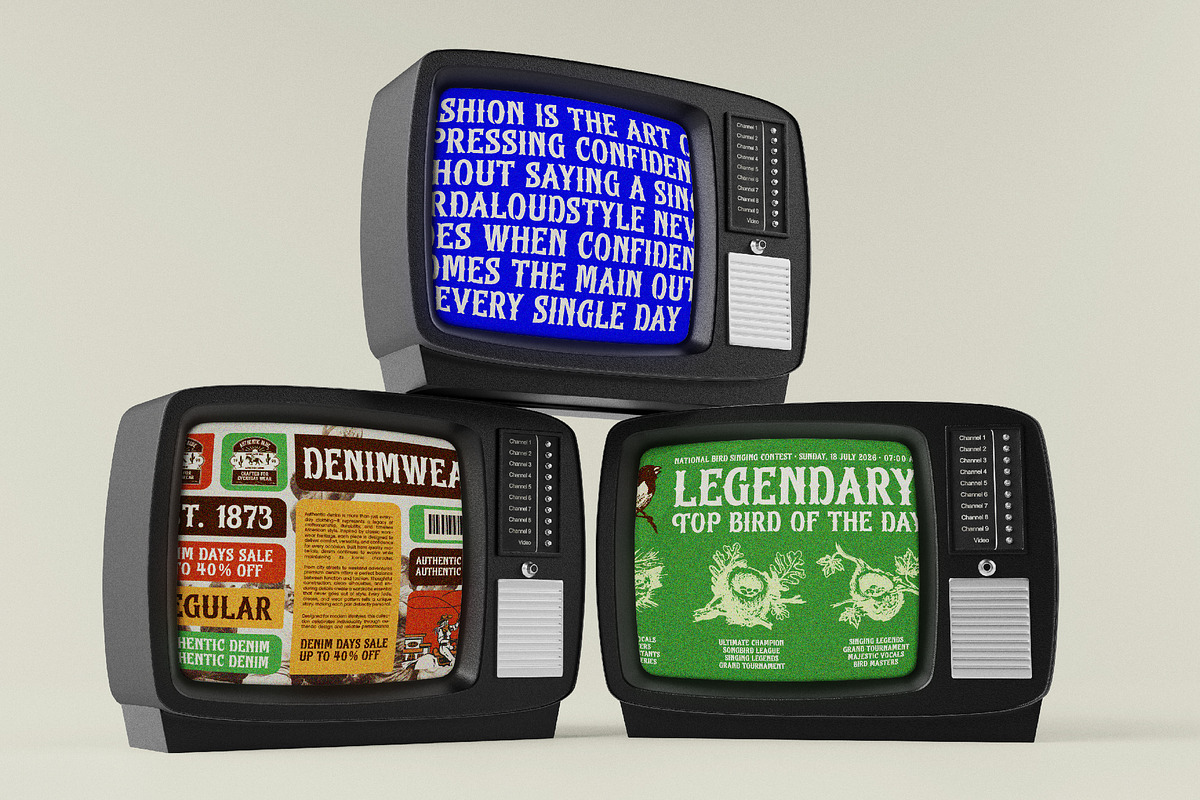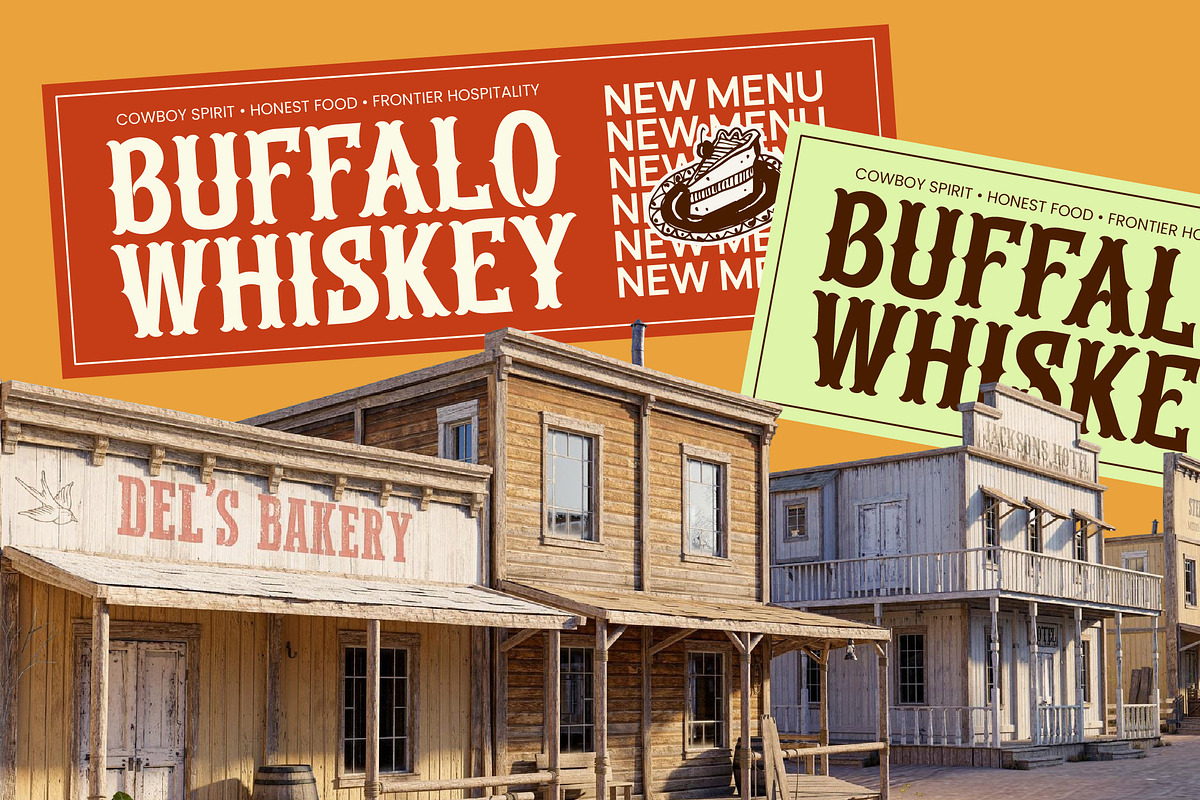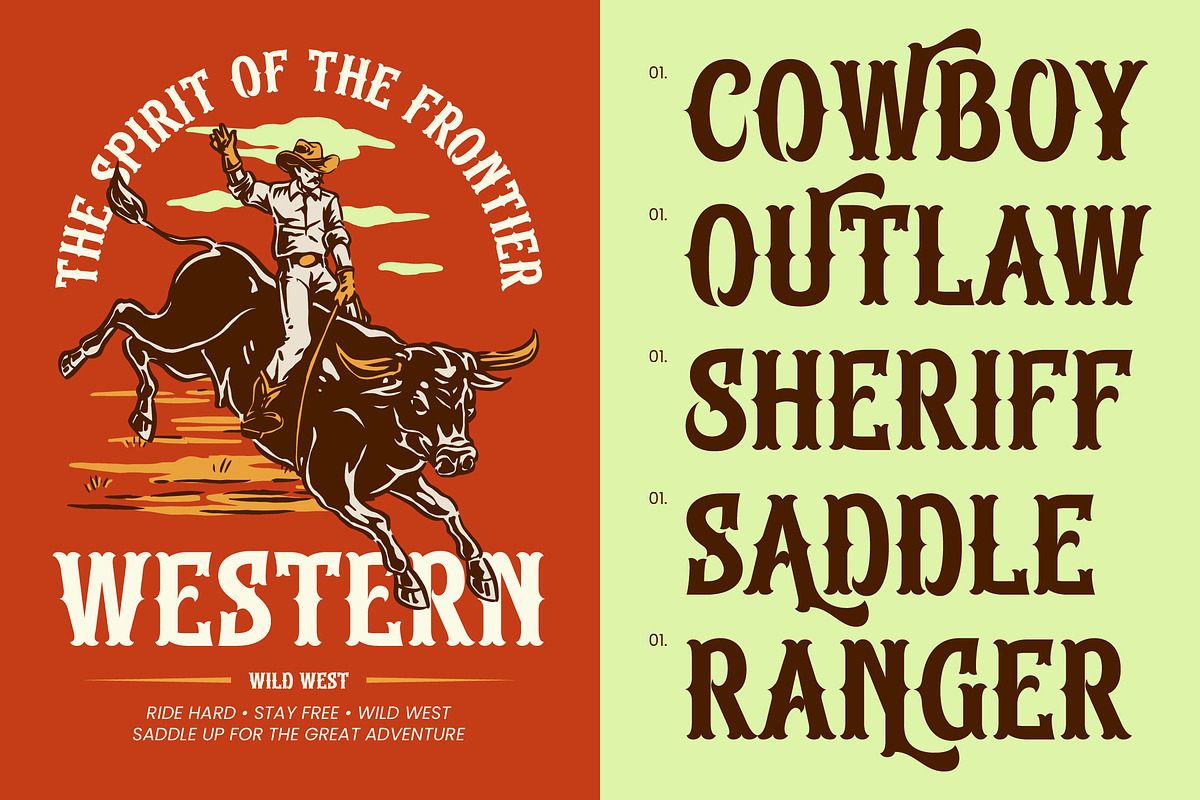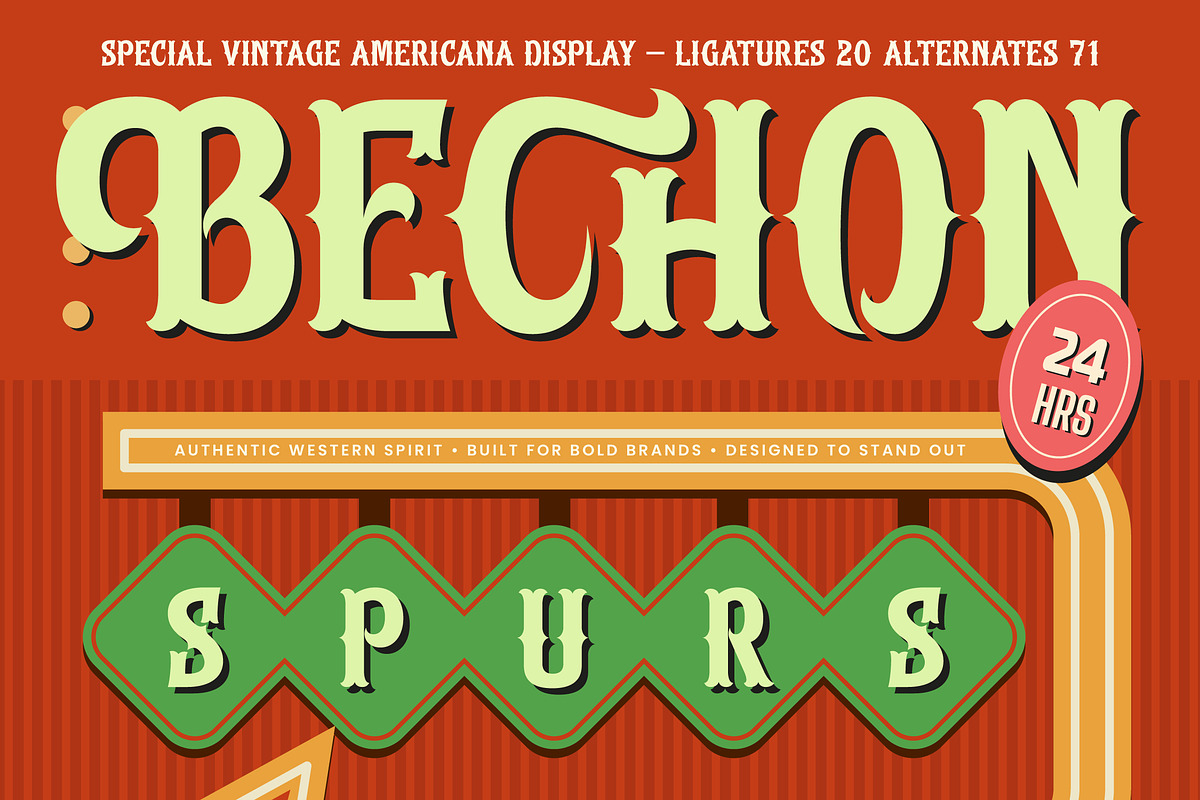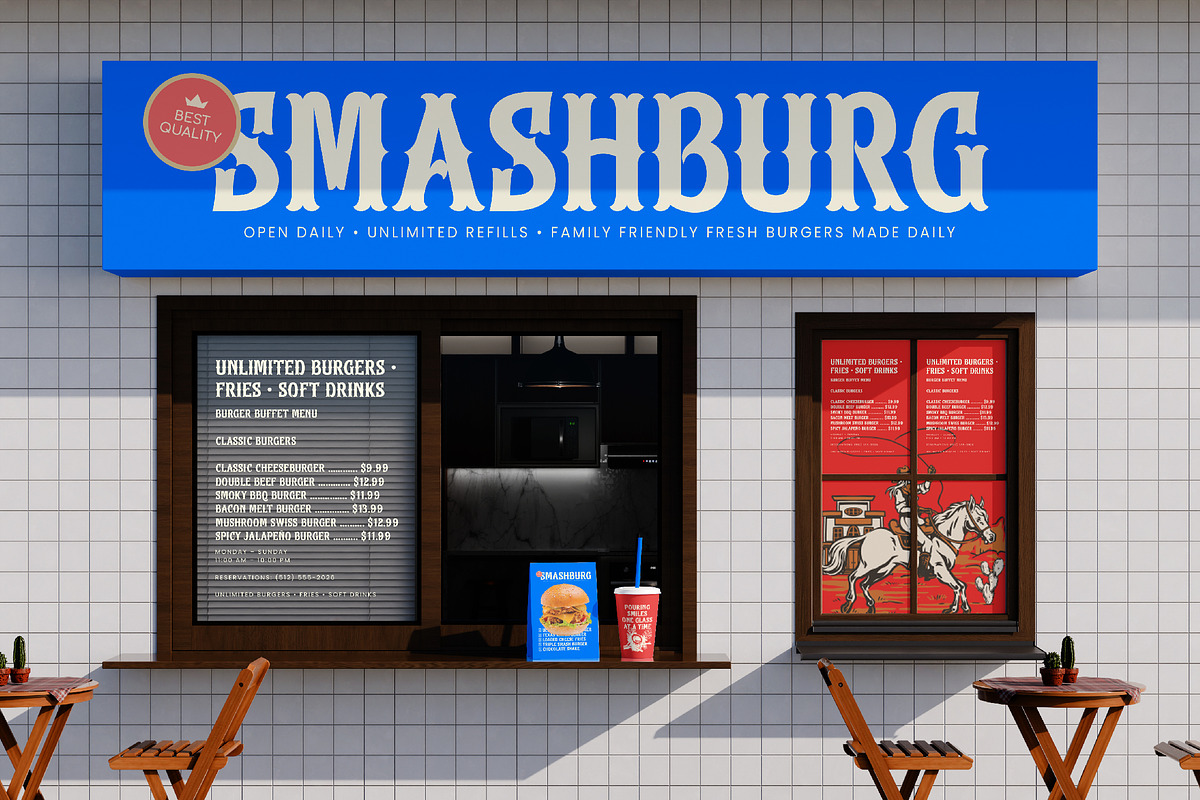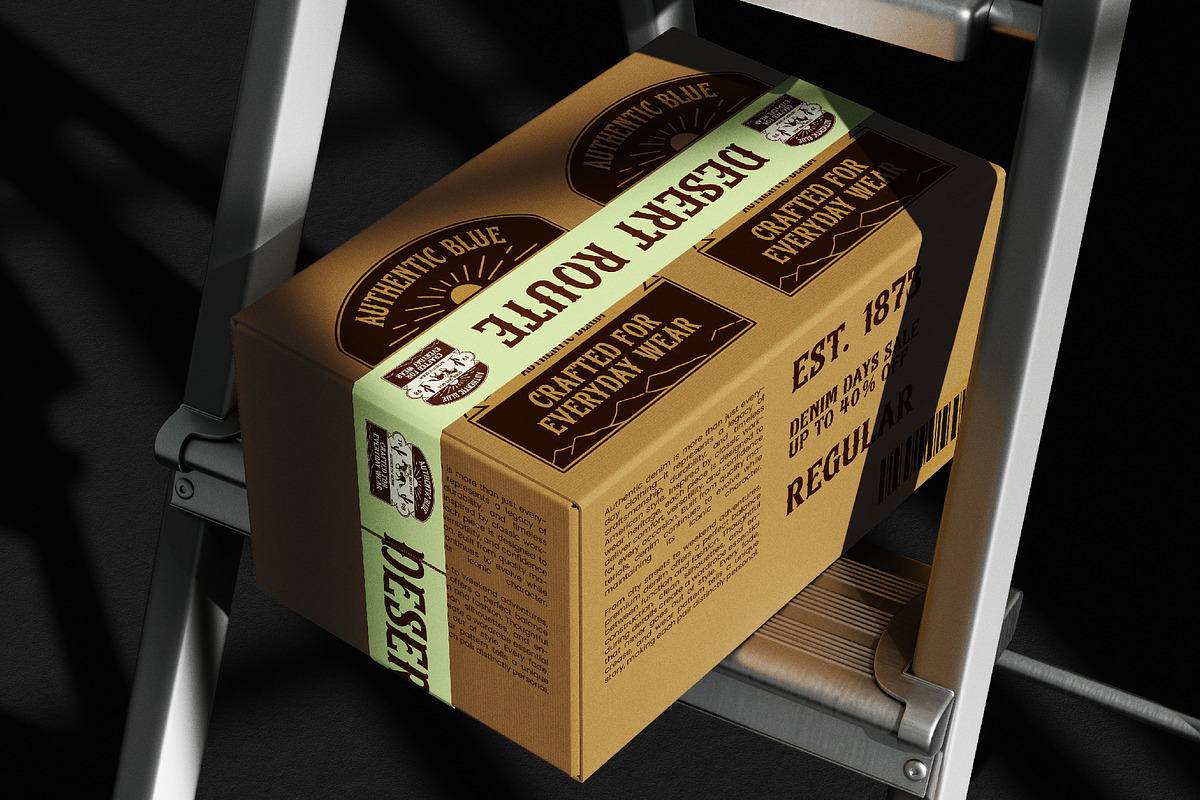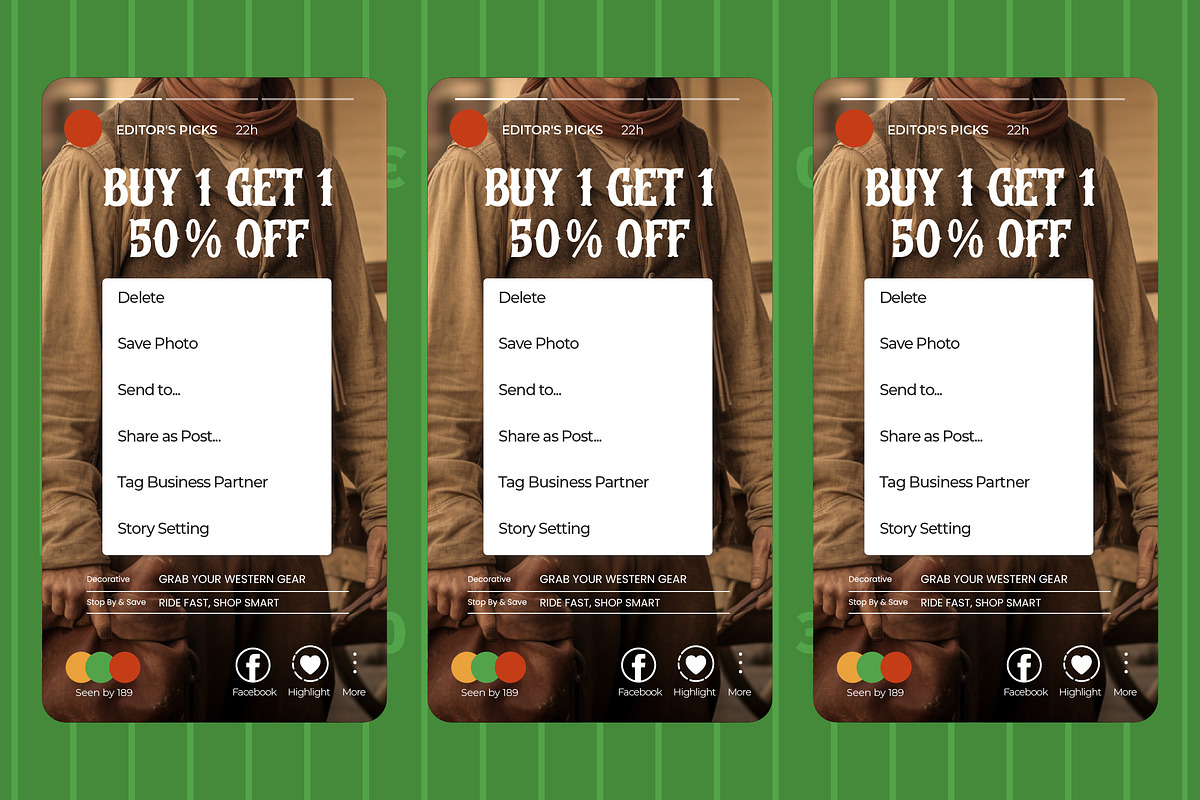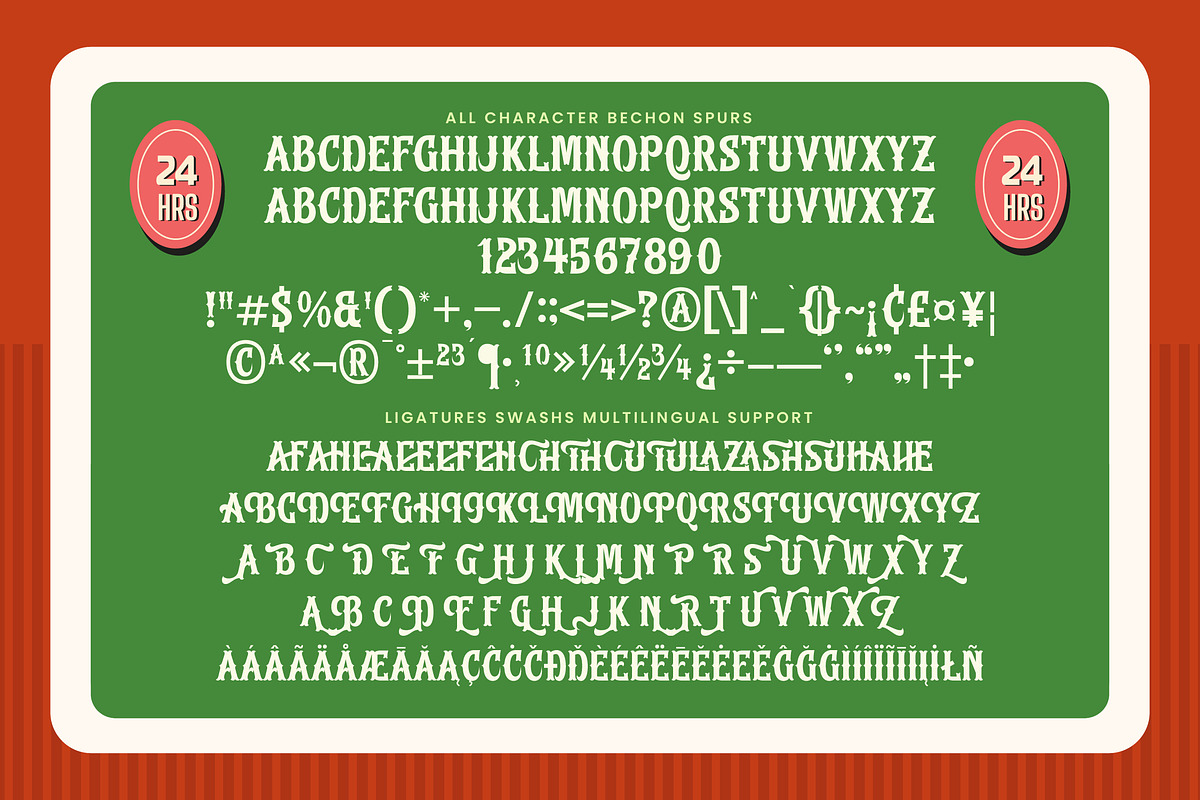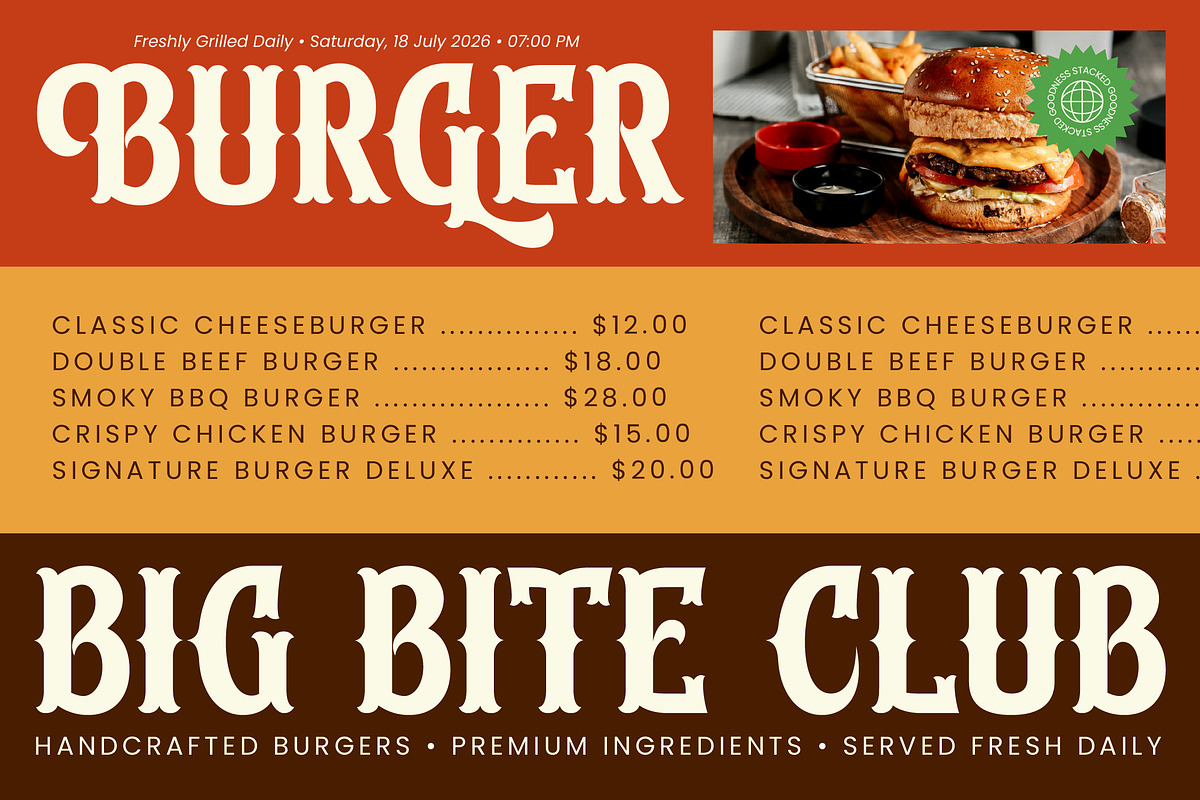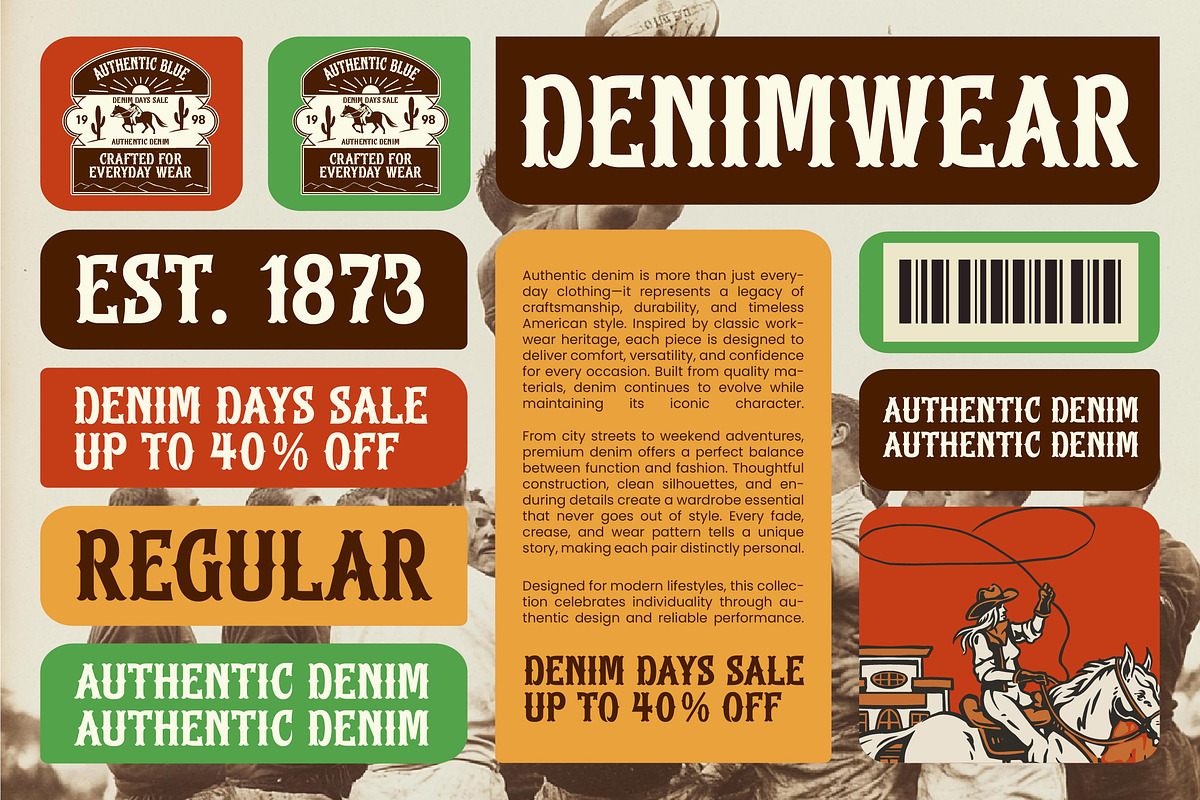
Bechon Spurs Special Vintage Display
Bechon Spurs – Special Vintage Americana Display , Reclaim the golden era of iconic signage with a typeface that captures the authentic Western spirit and bold brand presence. Bechon Spurs – Special Vintage Americana Display stands as a definitive tribute to mid-century artistry, blending ornate spurred serifs with a robust silhouette that demands attention. Featuring 20 ligatures and 71 alternates, this font provides designers with the tools to create custom lettering that feels handcrafted and heritage-driven.
Bridge the gap between historical charm and modern global functionality to ensure your message resonates across borders. With its extensive multilingual support, Bechon Spurs – Special Vintage Americana Display adapts seamlessly across global markets, making it incredibly versatile for international projects. Whether you are targeting a local boutique or a worldwide audience, the typeface maintains its visual integrity and legibility in every linguistic context.
Transform your creative vision into a timeless masterpiece with a font engineered for high-impact display applications. Bechon Spurs – Special Vintage Americana Display is perfect for luxury branding, premium packaging, and editorial design where a sense of nostalgia is required. Its striking character also excels in craft beer labeling, apparel graphics, and retro-themed signage, providing a sophisticated edge to any professional portfolio.
Elevate your design toolkit with a commercially-oriented asset built for bold storytelling and professional excellence. By integrating Bechon Spurs – Special Vintage Americana Display into your workflow, you gain access to a unique aesthetic essence that is both SEO-friendly and visually captivating. This commercial-grade typeface ensures your brand stands out in a crowded marketplace, delivering a lasting impression of quality and high-end craftsmanship.